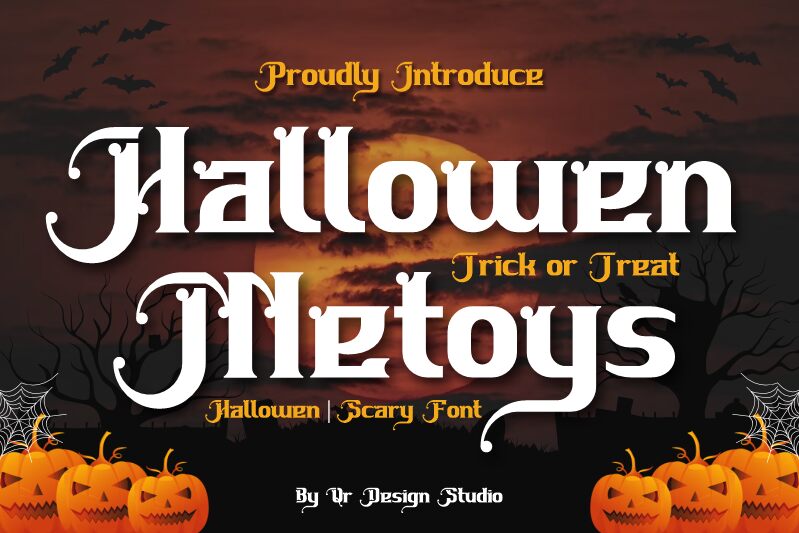
Hallowen Metoys
Hallowen Metoys font is a special work from QR Design, and it’s energetic in the best way with the spirit of the holiday. Here, gothic influences intermix with script ones for an adorned display typeface that feels out of this world. Intricate letters in dense proportions fill up any space possible making for an easy read option at a glance.
Use this free Gothic font across various events-related design work from party invitations to attraction poster designs. Improve packaging projects, branding, or social media content easily by taking advantage of unique characters and glyphs that (most other fonts) lack.